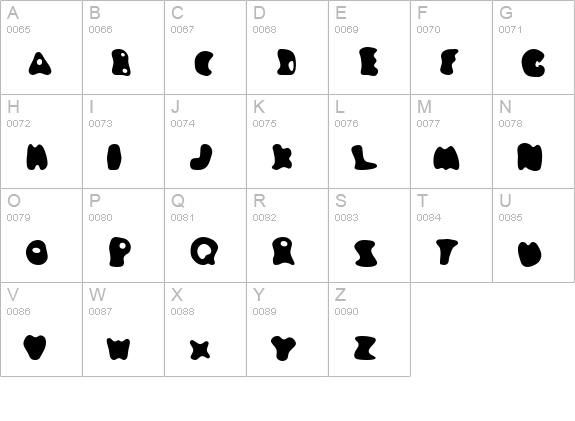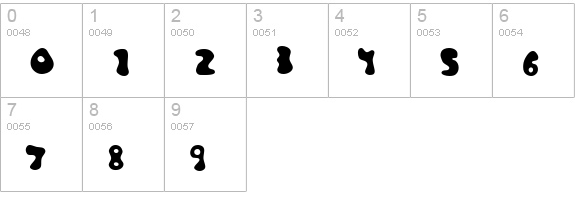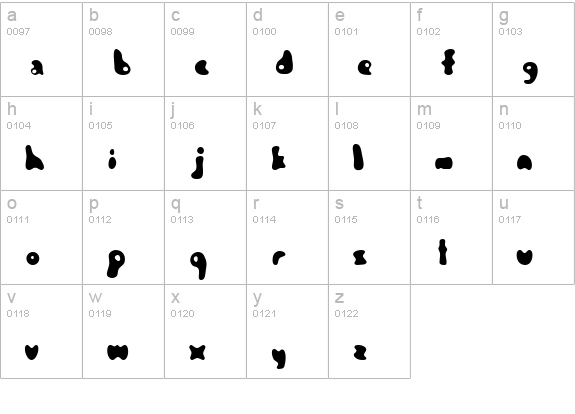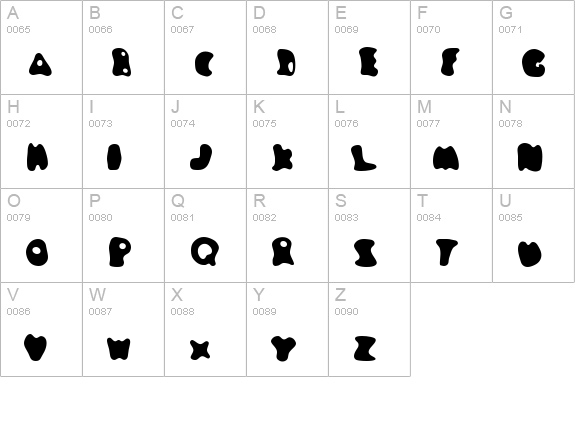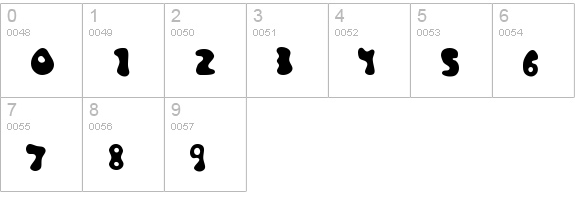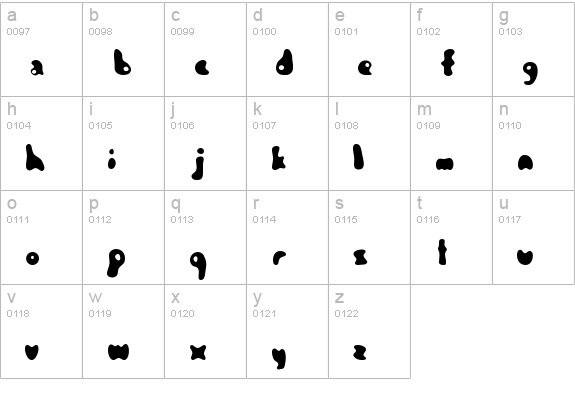
Jambotango Font Details
Introducing Jambotango, a captivating and versatile font that will bring a touch of elegance and playfulness to your designs. With its fluid curves and dynamic letterforms, Jambotango effortlessly blends modern sophistication with a hint of whimsy. This font is a perfect choice for a wide range of projects, including branding, logo design, headlines, invitations, and more. Its unique style will instantly grab attention and add a touch of personality to any design. Jambotango is not only visually stunning but also incredibly user-friendly. Its well-crafted letterforms ensure legibility, making it suitable for both large and small text sizes. Whether used for print or digital media, Jambotango delivers exceptional readability and visual impact. One of the most exciting aspects of Jambotango is that it is available for free! Yes, you read that right. This incredible font can be freely downloaded at FontsMarket.com. Say goodbye to expensive font licenses and hello to creative freedom. FontsMarket.com offers a hassle-free download process, ensuring that Jambotango is easily accessible to designers and enthusiasts alike. By making Jambotango freely available, FontsMarket.com aims to empower designers to unleash their creativity without any constraints. Don't miss the opportunity to enhance your designs with the captivating charm of Jambotango. Download this delightful font from FontsMarket.com today and let your imagination run wild. With Jambotango, the possibilities are endless.